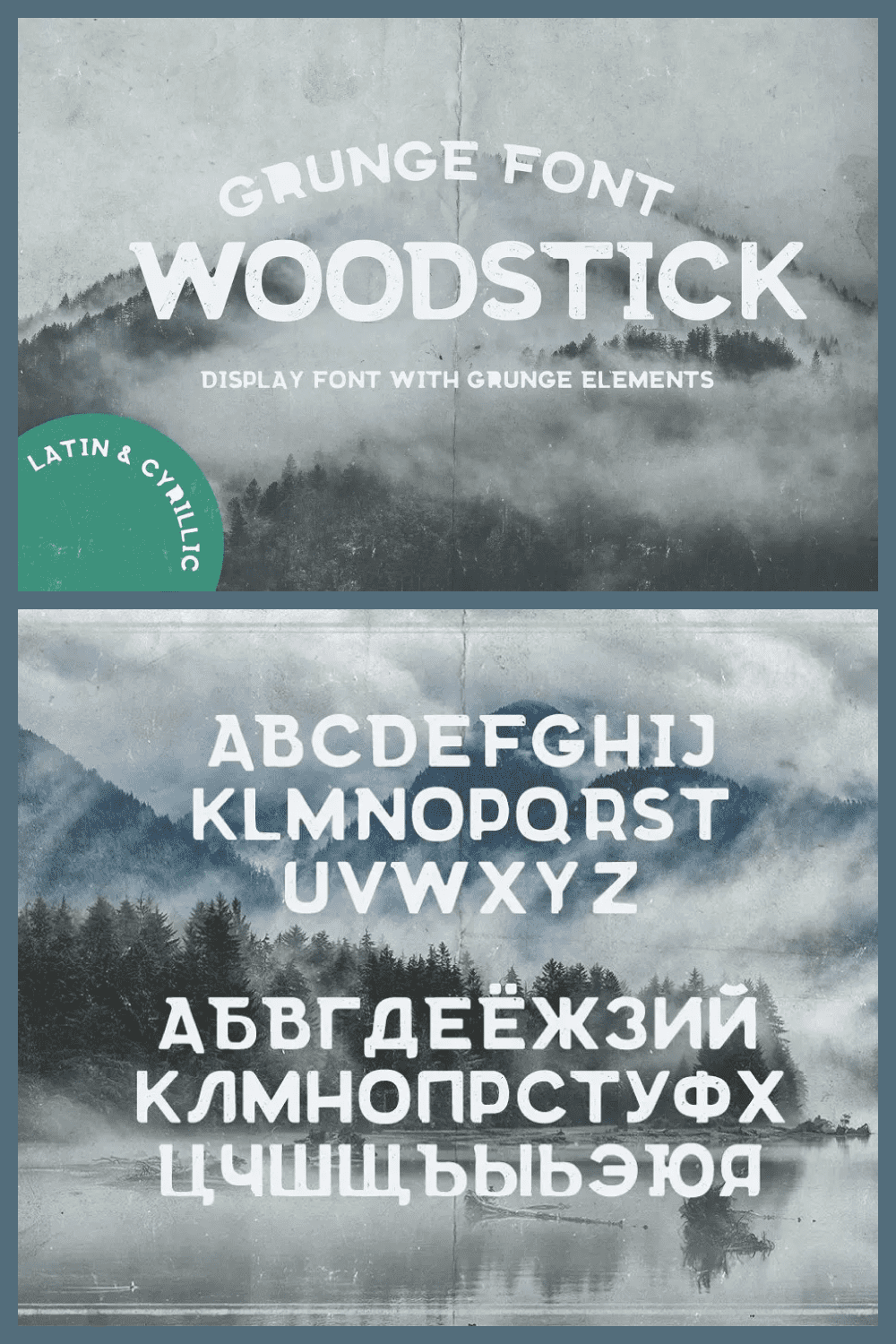
When you read the title on a book cover, you might think you’re just reading the words but there is more to it. The visual design chosen for a book cover aims to make a first impression on readers. If they like the artistic design of the letters, their brain will take that in before they even read the words. The certain styling of the font gives an idea about the type of book it might be. Choosing the right font is important. Otherwise, they will lose interest at the very beginning. So, you can see how much design matters. That’s why we suggest you focus on that aspect now and use our collection of fonts for book covers to pick the best one for your story.
A good book cover typeface can indicate the “density” of the writing style. Professional books crafted for a narrow audience usually have complex, yet strict, cover fonts. Children’s books tend to use the most abstract lettering to look interesting to the younger audience.
Surprisingly, many authors don’t consider book cover scripts seriously. After investing many weeks, months, or years into writing an interesting piece of content, they put almost no effort into creating a visually attractive cover.
If you want to impress your readers, make sure that your cover font reflects the genre and theme of your book, as well as your individual style of writing. Hopefully, our list of free and premium fonts for book covers will help you create the perfect artwork. Keep developing your eye-catching design!
Retro Vintage Script
If you are looking for a vintage typeface for yourself, but with a hint of modernism, this is the best option. It was created specifically as a typeface for book covers. This script looks elegant, luxurious, and natural, with a nice signature touch.
CS Harley Font Family
CS Harley Font is one of the best solutions for designing posters, headers, logos, t-shirts, book covers, magazines, banners, and much more. In addition, it contains 2 styles and 3 weighted scripts, which makes it quite versatile.
Wadezix A All Caps Comics Font
Among the thousands of book cover fonts, it can be difficult to find a product that’s perfect for comics. This is exactly the font that will solve all your problems and allow you to create a really unique and interesting product.
Aurora Monospaced Serif Font
If you want a monospaced typeface with a friendly character, then Aurora is perfect for you. It has rounded ends, which distinguishes it from the classic monospaced fonts. Use it to design business cards, book covers, banners, posters, and more. It’s really versatile.
PopArt Vintage Typeface
Introducing a vintage typeface for you called PopArt. This is an unusual product that is best suited for the unique design of various products. It is suitable for book covers, labels, banners, t-shirts, and much more.
Exa Metline Font
Exa Metline is a geometric typeface in a modern style with an unusual shape to the letters. This package consists of 3 fonts with a separate inner liner layer. There are also 10 alternative characters available if you need a more conventional letter shape. Quite an unusual choice of font for headings, packing, and book covers, but definitely worth a try.
Mellifluous Slab Serif
This script is great for headlines, captions, book covers, and everything in between. If you wanted to find a flexible product for yourself that would work for a lot of things, then this option is great for you.
Woodstick Font
Here’s another pretty interesting shifter option that would be great for book covers, magazines, book titles, and headlines. This script is quite flexible and easy to read, which gives it an advantage in this case.
Time To Play Vintage Font
Introducing a vintage typeface for book covers and magazines called Time To Play. The font has four styles: Base, Grunge, Volume, and Texture. All styles have the same metrics and kerning. If you’ve been wanting to try something really unusual in your design projects, it’s time to try this one.
Asher Punk Font
This is one of the best fonts for fantasy book covers you can find on the market. It looks great on a wide variety of products, which makes it a pretty flexible choice. It’s also great for magazines, social media, weddings, or just used to express words above a unique background.
Mollucas Clove Unique Vintage Display Font
Mollucas Clove Unique Vintage Display is a unique vintage style font with some stylistic sets and ligature combinations. It is a great option for your projects such as branding, movie title, letter header, book cover, magazine covers, posters, letter quotes, logos, and more.
Pobble Fun Fat Comic Font
Note this comic book font, which captures its uniqueness and is full of goodness. It would be perfect for children’s book covers, titles, and the like. Designed specifically for use in upper case, but there are lower case options as well.
Cendrawasih Beautiful Modern Handwritten Brush Script
Cendrawasih is inspired by the tail of the birds-of-paradise. It is very beautiful, bold, and hand-drawn with a brush. This is a good choice for your lettering, signatures, typography, magazine, branding, poster, wedding invitations, letter quotes, and magazine and book covers.